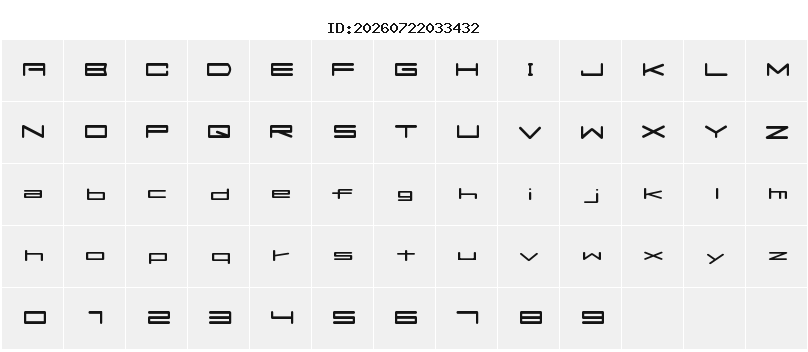
• Font Name: FLATS
FLATS.ttf is a modern, elegant sans-serif font designed for ultimate readability and visual harmony. Perfect for branding, headlines, web design, and print materials.